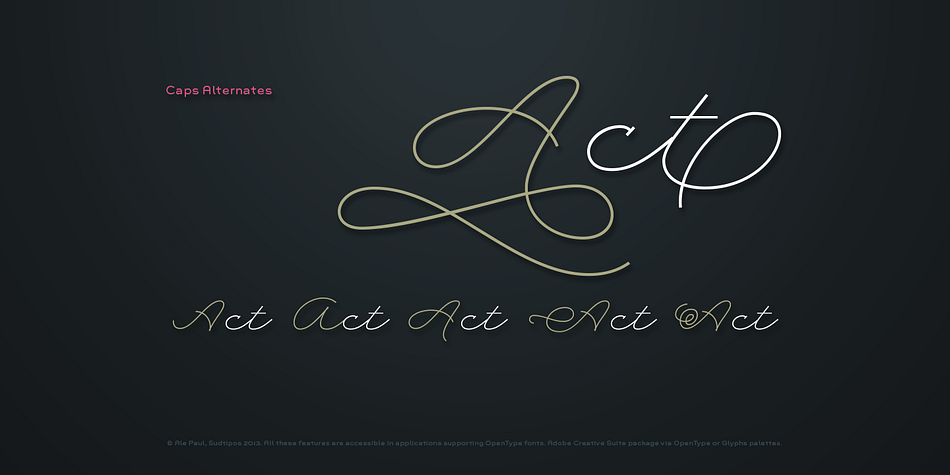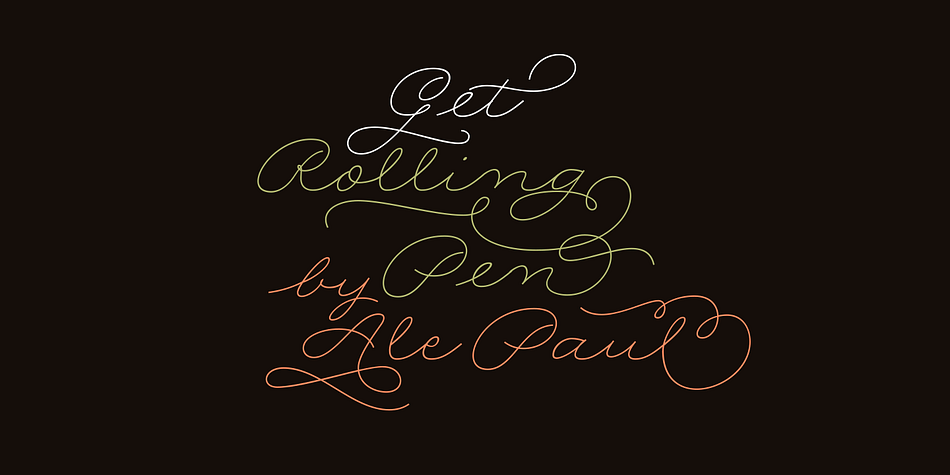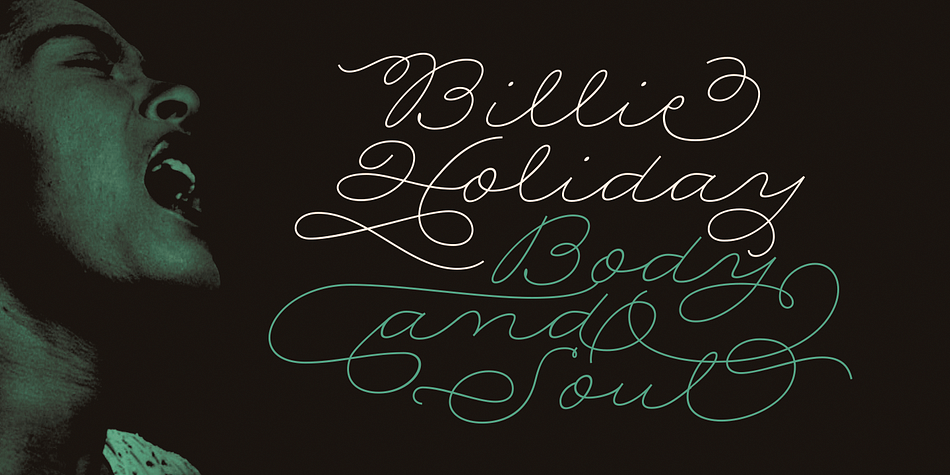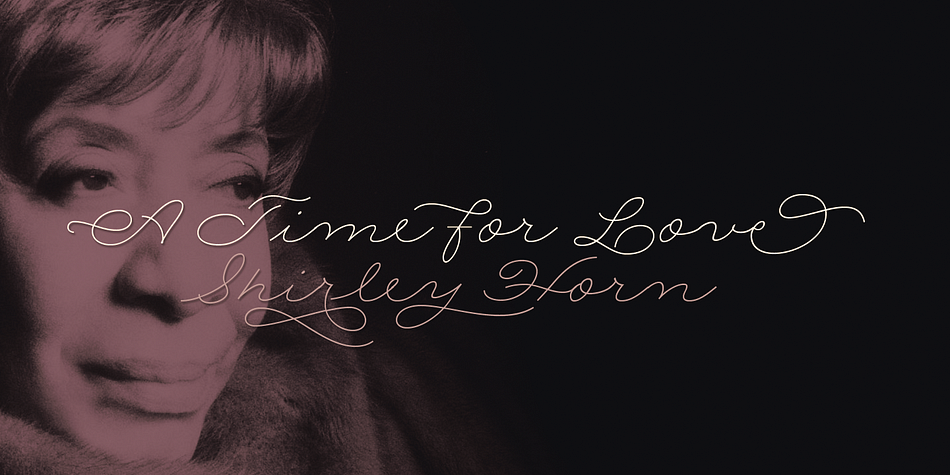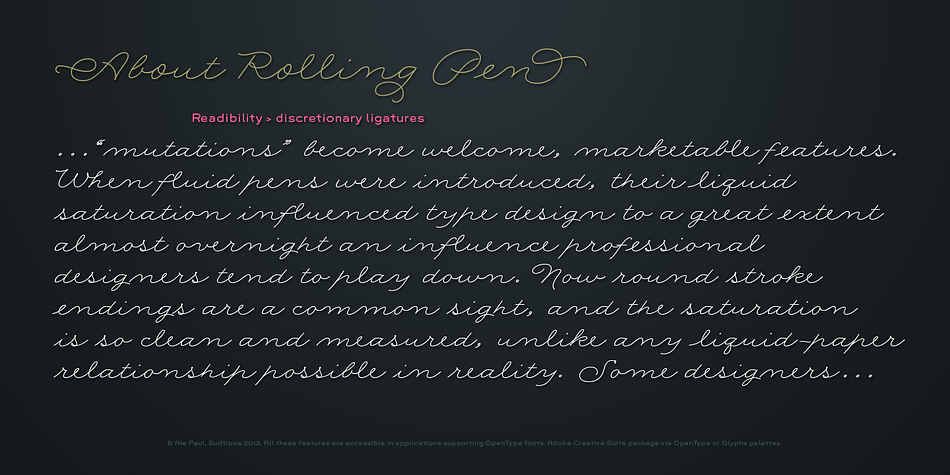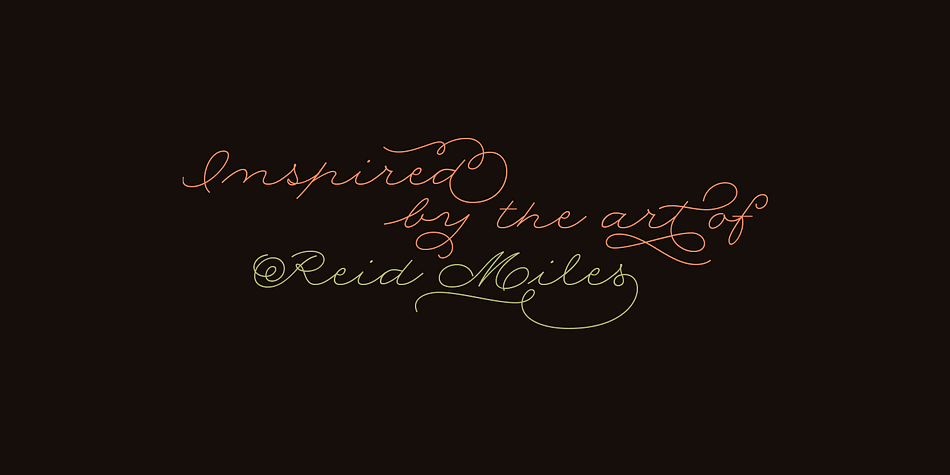
Rolling Pen
Rolling Pen is a script font family. This typeface has five styles and was published by Sudtipos.
After doing this for so many years, one would think my fascination with the old history of writing would have mellowed out by now.
The truth is that alongside being a calligraphy history buff, I
Maybe even keener on the tech thing, since I just can
And after working with type technologies for so many years, I
In a world where command-z is a frequently used key combination, it’s difficult to justify expecting a Morris-made book or a Zaner-drawn sentence, but accidental artistic “mutations” become welcome, marketable features.
When fluid pens were introduced, their liquid saturation influenced type design to a great extent almost overnight ‹ an influence professional designers tend to play down.
Now round stroke endings are a common sight, and the saturation is so clean and measured, unlike any liquid-paper relationship possible in reality.
Some designers even illustrate their work by overlaying perfect circles at stroke ends, in order to illustrate how “geometric” their work was.
Because if it’s measured with precise geometry, it’s got to be meaningful design.
And once in a while, by a total freak accident, the now-cherished mutations prove to have existed long before the technology that caused them.
Rolling Pen was cued by just such a thing: A rounded, circular, roll-flowing calligraphy from the late nineteenth century ‹ seemingly one of those experimental takes on what inspired Business Penmanship, another font of mine.
Looking at it now it certainly seems to be friendlier, more legible, and maybe even more practical and easier to execute than the standard business penmanship of those days, but I guess friendliness and simplicity were at odds with the stiff manner business liked to present itself back then, so that kind of thing remained buried in the professional penman’s oddities drawer.
It would be quite a few years before all this curviness and rounding were thought of as symbolic of graceful movement, which brought such a flow closer to the idea of fine art.
Even though in this case the accidental mutation just happens to not be a mutation after all, the whole technology-transforms-application argument still applies here.
I
One extreme example of that level of disconnect between origin and current application is shown here, with the so-called business penmanship strutting around in gloss and neon.
Rolling Pen is another cup of mine that runneth over with alternates, swashes, ligatures, and other techy perks.
Enjoy the new Rolling Pen designed by Ale Paul with Neon’s visual poetry by Tomás García.
Rolling Pen is a five font, script family by Sudtipos.
Rolling Pen includes OpenType Standard Ligatures and has good Latin language support.
Rolling Pen is a script font family.
This typeface has five styles  and was published by Sudtipos.
After doing this for so many years, one would think my fascination with the old history of writing would have mellowed out by now. The truth is that alongside being a calligraphy history buff, I’m a pop technology freak. Maybe even keener on the tech thing, since I just can’t seem to get enough new gadgets. And after working with type technologies for so many years, I’m starting to think that writing and design technologies as we now know them, being about 2.5 post-computer generations, keep becoming more and more detached from what the very old humanity arts/tasks they essentially want to facilitate. In a world where command-z is a frequently used key combination, it’s difficult to justify expecting a Morris-made book or a Zaner-drawn sentence, but accidental artistic “mutations” become welcome, marketable features. When fluid pens were introduced, their liquid saturation influenced type design to a great extent almost overnight ‹ an influence professional designers tend to play down. Now round stroke endings are a common sight, and the saturation is so clean and measured, unlike any liquid-paper relationship possible in reality. Some designers even illustrate their work by overlaying perfect circles at stroke ends, in order to illustrate how “geometric” their work was. Because if it’s measured with precise geometry, it’s got to be meaningful design.
And once in a while, by a total freak accident, the now-cherished mutations prove to have existed long before the technology that caused them. Rolling Pen was cued by just such a thing: A rounded, circular, roll-flowing calligraphy from the late nineteenth century ‹ seemingly one of those experimental takes on what inspired Business Penmanship, another font of mine. Looking at it now it certainly seems to be friendlier, more legible, and maybe even more practical and easier to execute than the standard business penmanship of those days, but I guess friendliness and simplicity were at odds with the stiff manner business liked to present itself back then, so that kind of thing remained buried in the professional penman’s oddities drawer. It would be quite a few years before all this curviness and rounding were thought of as symbolic of graceful movement, which brought such a flow closer to the idea of fine art.
Even though in this case the accidental mutation just happens to not be a mutation after all, the whole technology-transforms-application argument still applies here. I’m almost sure “business” will be the last thing on people’s minds when they use this font today. One extreme example of that level of disconnect between origin and current application is shown here, with the so-called business penmanship strutting around in gloss and neon.
Rolling Pen is another cup of mine that runneth over with alternates, swashes, ligatures, and other techy perks. To explore its full potential, please use it in a program that supports OpenType features for advanced typography.
Enjoy the new Rolling Pen designed by Ale Paul with Neon’s visual poetry by Tomás García.